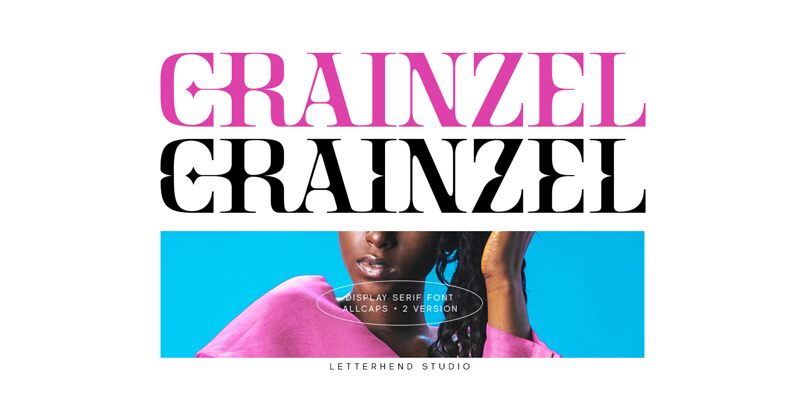
Crainzel is a charming serif, handwritten font designed by Sahrul Hidayat. Perfect for creating beautiful invitations, posters, logos and more - this font has the perfect balance of elegance and personality. Use it to add a touch of sophistication to any project!